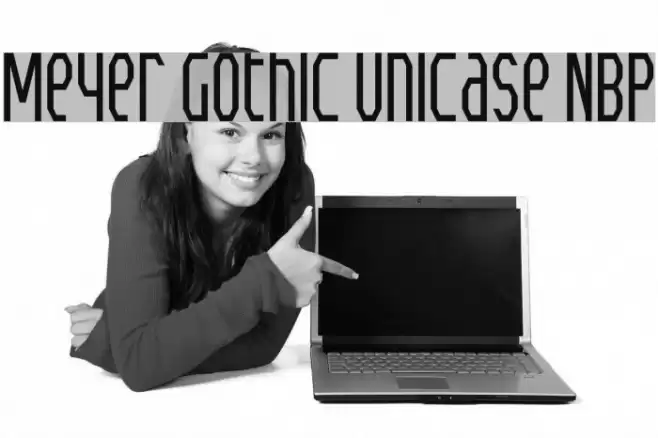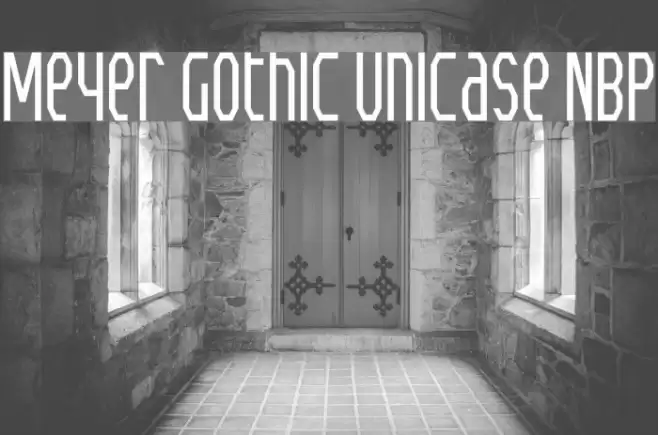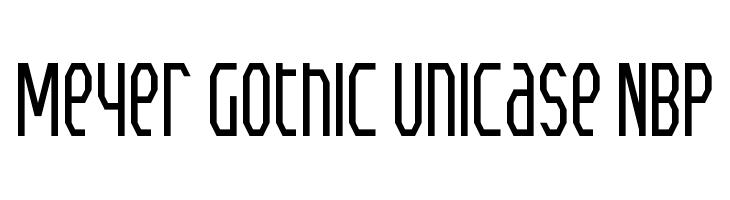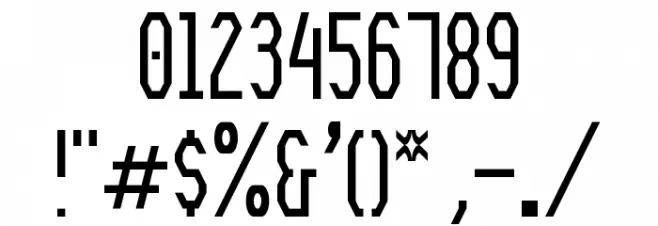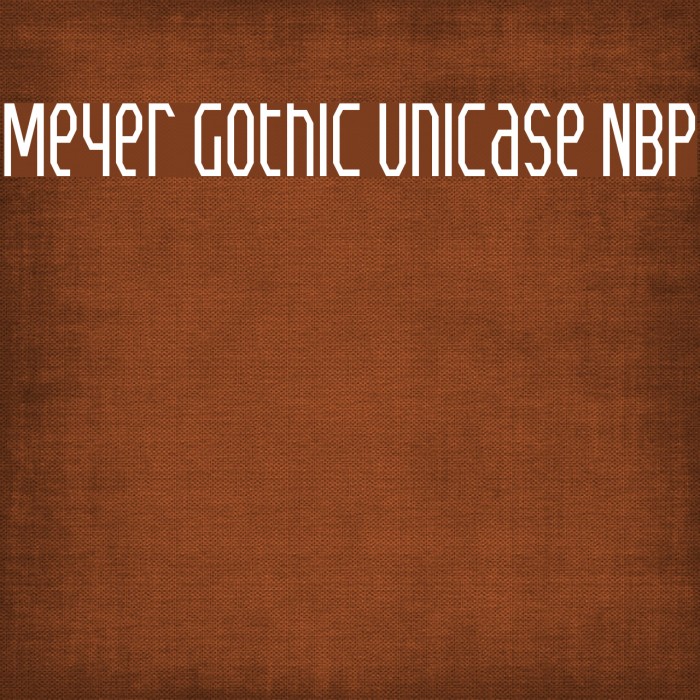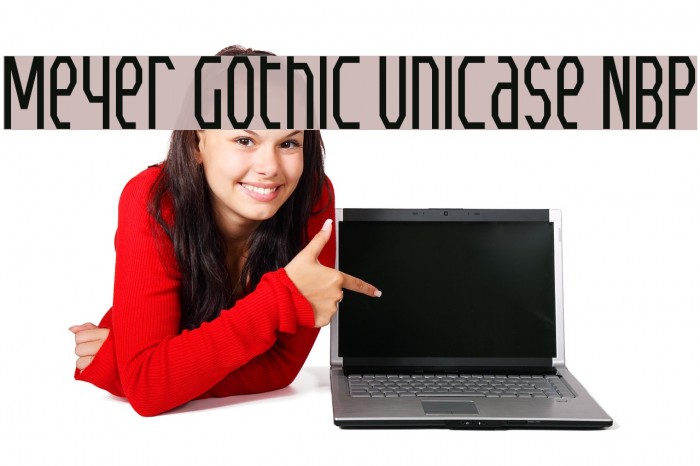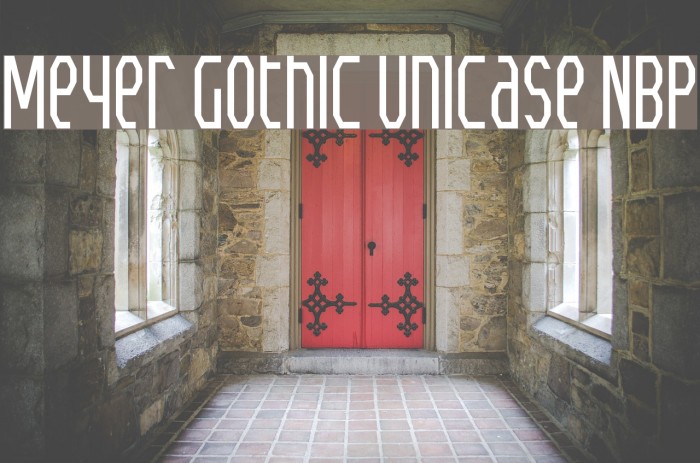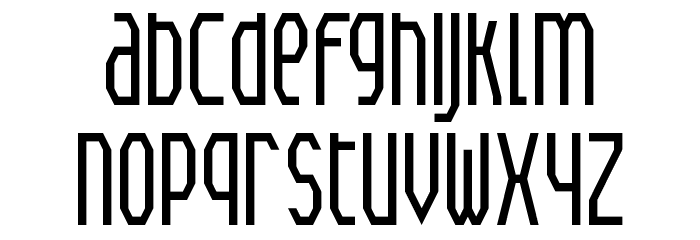
Meyer Gothic Unicase NBP Font
Meyer Gothic Unicase NBP Description
This font features a unique blend of geometric and gothic elements, creating a modern yet classic appearance. The characters are tall and narrow, with sharp angles and clean lines that give it a distinct, structured look. The uppercase and lowercase letters maintain a consistent height, contributing to a unicase style that is both striking and versatile. The numerals and special characters follow the same design principles, ensuring uniformity across all glyphs. This font's design is ideal for projects that require a bold and eye-catching typeface.
A modern, geometric font with a unicase style and sharp, clean lines from Uncategorized fonts.
- Proposed Projects: Ideal for branding, posters, headlines, and any design requiring a bold, modern typeface.